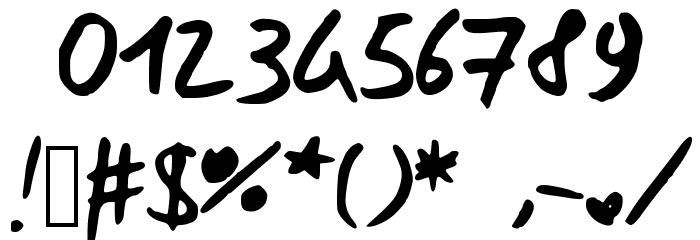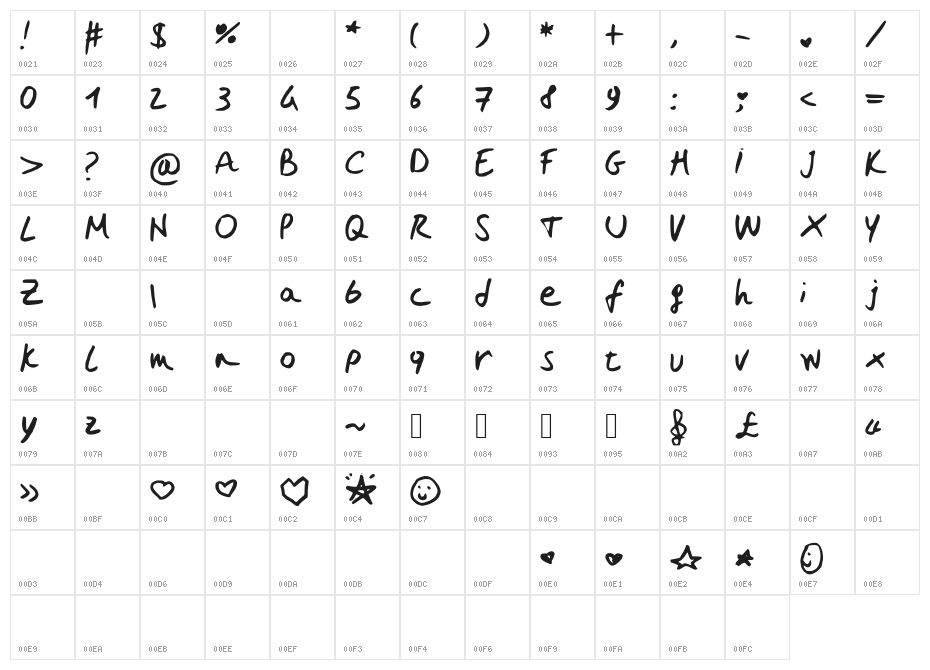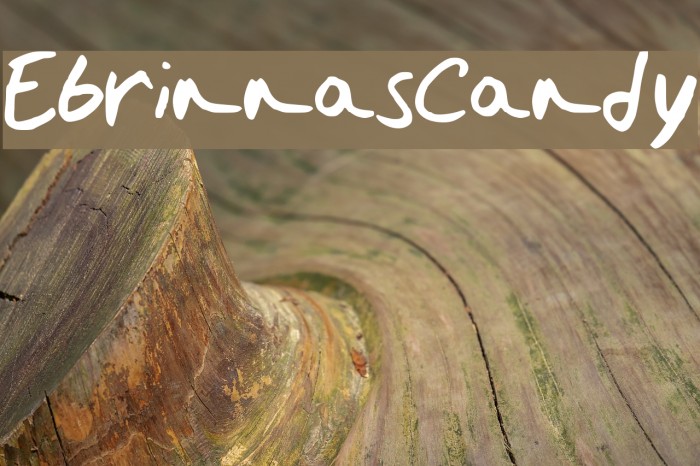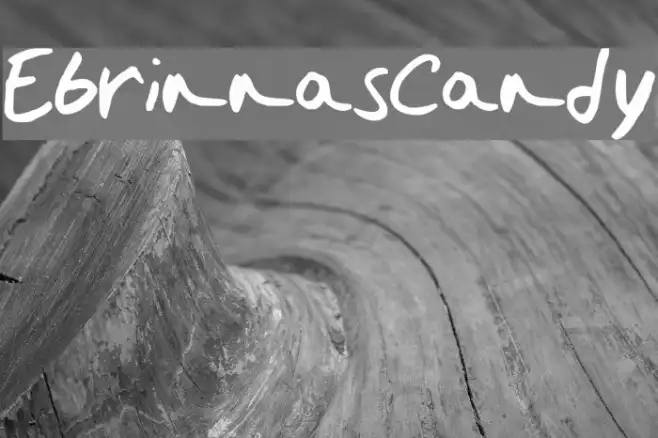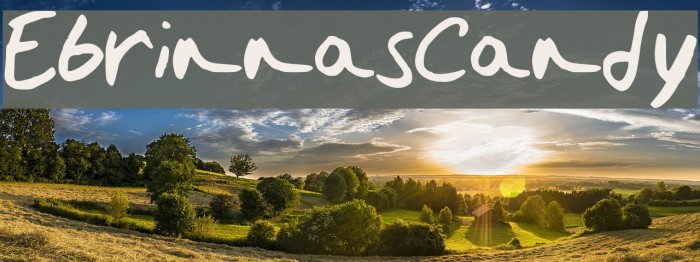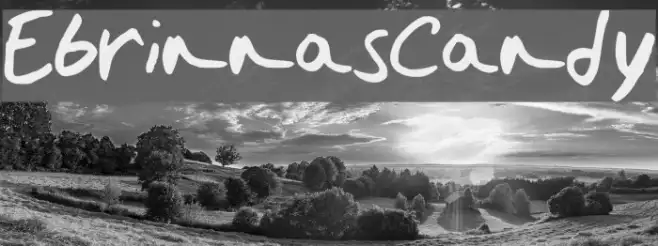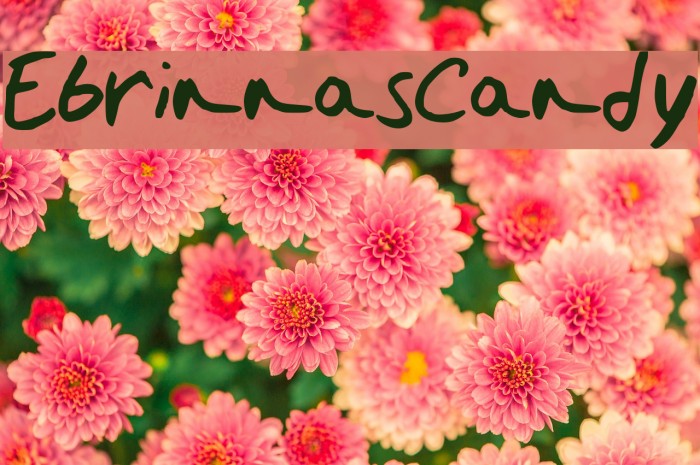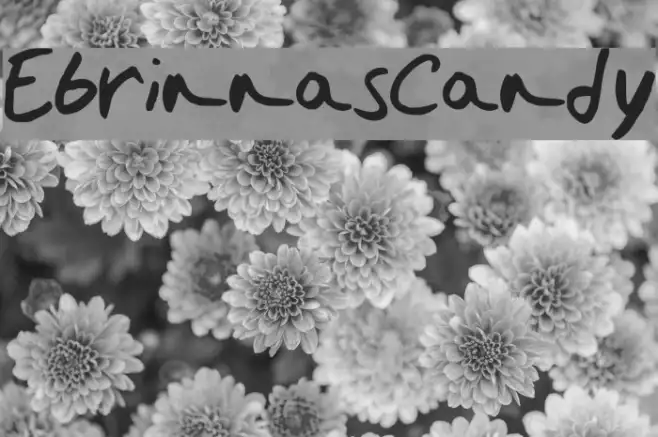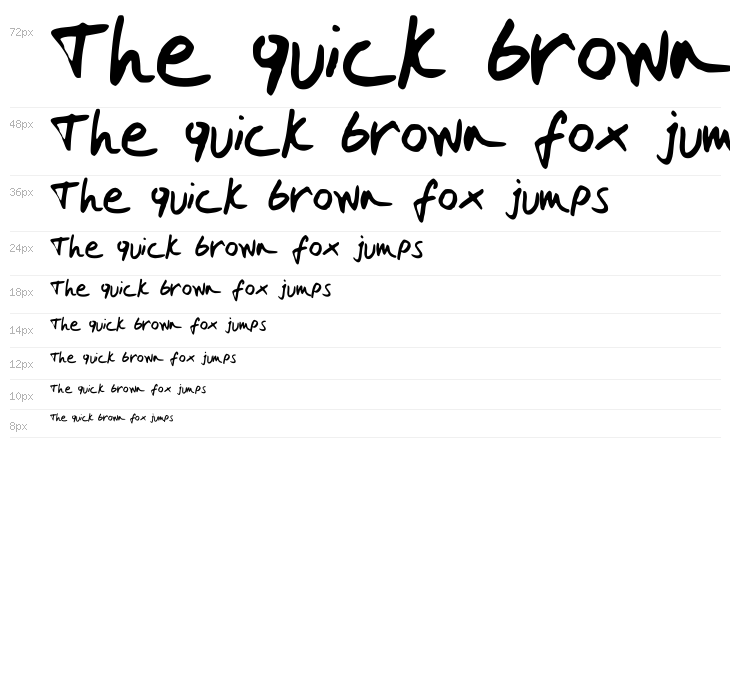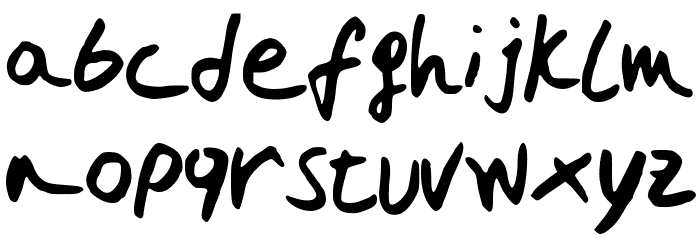
EbrinnasCandy Font
EbrinnasCandy Description
This font exudes a playful and casual handwritten style, characterized by its bold and slightly irregular strokes. The letters are crafted with a sense of spontaneity, giving it a lively and informal appearance. Each character varies slightly in width and height, adding to its organic feel. The uppercase letters are bold and prominent, while the lowercase letters maintain a consistent flow, enhancing readability. Numbers and special characters follow the same playful aesthetic, making them suitable for creative projects. The overall design is reminiscent of a personal touch, perfect for conveying warmth and approachability.